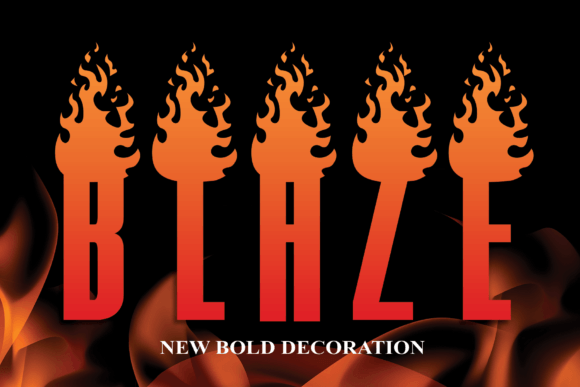
The Blazing Font That’s Setting Designers Ablaze
I’ll never forget the time I was working on a project for a client who needed a bold, eye-catching font to match their fiery brand personality. I scoured the internet, tried out countless fonts, but nothing seemed quite right. That was until I stumbled upon Blaze, a bold decorative font that’s been a game-changer for my design projects. In this article, I’ll share my experience with Blaze, its features, and how to get the most out of this amazing font.
An Honest Review of Blaze Font
What I Love About Blaze Font ✨
• 💥 **Bold and eye-catching**: Blaze font is perfect for making a statement with your designs. Its bold and decorative style is sure to grab attention.
• ✅ **Versatile**: Blaze can be used for a wide range of projects, including wall hangings, social media posts, logos, advertisements, product packaging, and more.
• 🎨 **Highly customizable**: With OpenType features and glyphs, you can customize Blaze to fit your design needs.
• 👍 **Easy to read**: Despite its bold style, Blaze is surprisingly easy to read, even at smaller font sizes.
• ⚠️ **Limited use cases for body text**: While Blaze is great for headings and titles, it’s not ideal for body text due to its bold style.
• 🤔 **May not be suitable for formal designs**: Blaze’s bold and decorative style may not be suitable for formal designs or projects that require a more professional tone.
• Inferno: A bold, fiery font with a similar style to Blaze. Use Inferno for designs that require a more aggressive look.
• Ember: A warm, elegant font with a slightly softer style than Blaze. Use Ember for designs that require a more sophisticated look.
• Flare: A bold, modern font with a similar style to Blaze. Use Flare for designs that require a more contemporary look.
• Ignite: A bold, edgy font with a similar style to Blaze. Use Ignite for designs that require a more dramatic look.
The Backstory of Blaze Font
Blaze font was designed by a team of typographers who wanted to create a bold, eye-catching font that’s perfect for designs that require a fiery personality. Inspired by flames and fire, Blaze is a font that’s sure to set your designs ablaze.
Q: What is Blaze font best used for?
A: Blaze font is best used for designs that require a bold, eye-catching style, such as wall hangings, social media posts, logos, advertisements, and product packaging.
Q: Can I use Blaze font for body text?
A: While Blaze font is easy to read, it’s not ideal for body text due to its bold style. It’s best used for headings and titles.